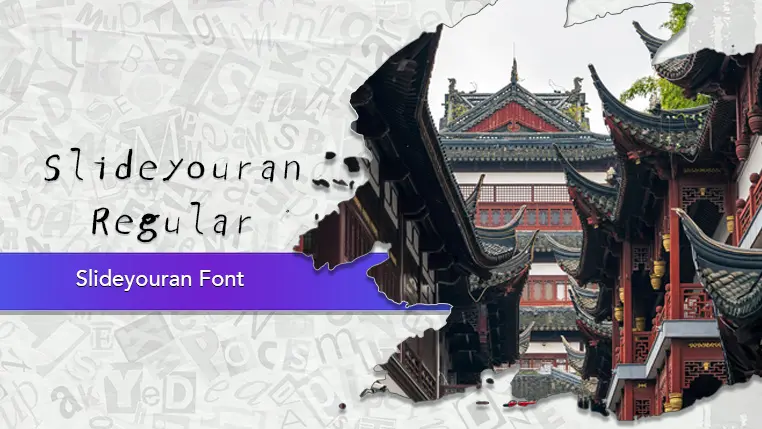
The Slideyouran font family may be ideal for you if you enjoy working on an artistic design project. The lively, expressive look of this typeface, which was created by The SlideFont Project, makes it ideal for Presentations, use on any document primarily viewed digitally (PDFs, online articles, internal reports), a font designed for screen legibility is a strong choice. and other light-hearted visual projects.
Regular are the one primary font styles of the Slideyouran font family. You may build dynamic, visually appealing text layouts with the distinct flair that each style offers. With crisp, readable lines and a relaxed tone.